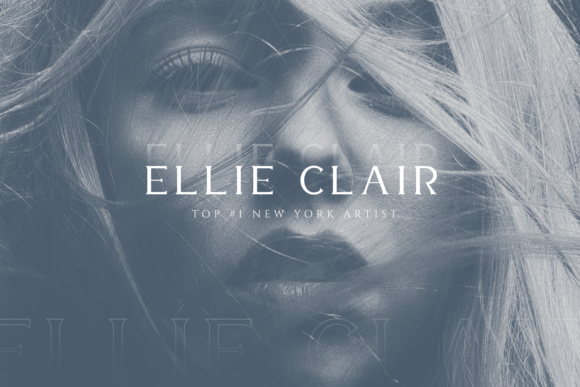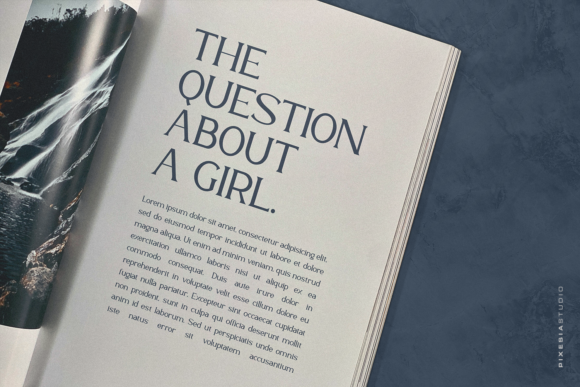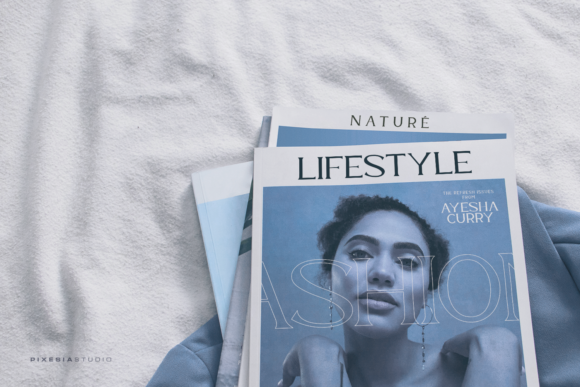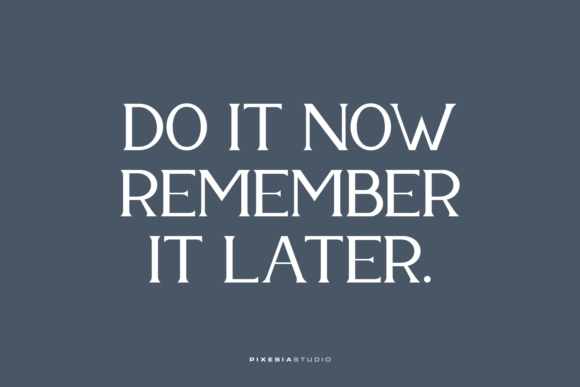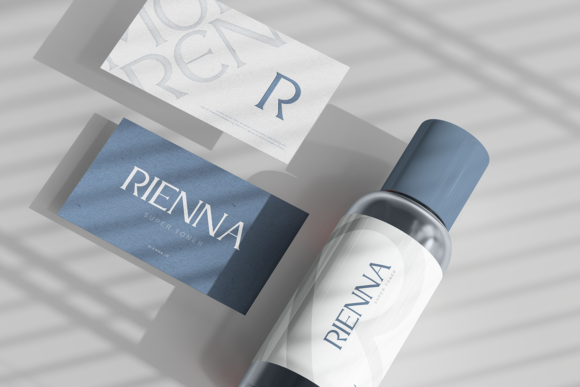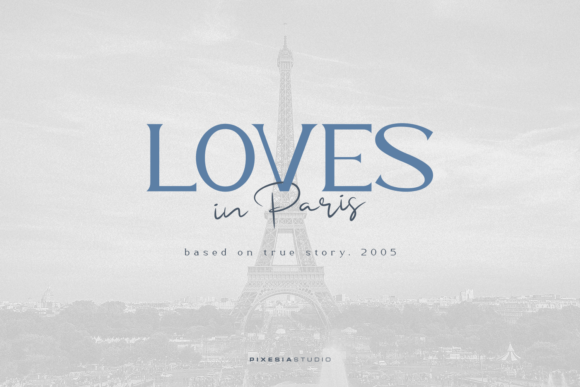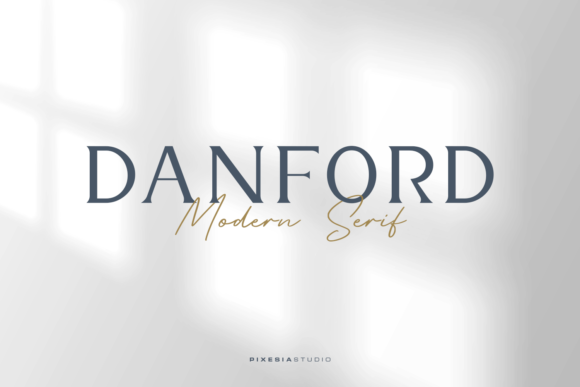
Introducing Danford Font: A Bold and Cool Serif for Crafty Ideas
Are you a designer or crafter looking for a unique and versatile font to elevate your creative projects? Look no further than Danford Font, a bold and cool serif font that’s perfect for a wide range of applications. From letterheads and titles to stationery and more, Danford Font is sure to make a statement.
What is Danford Font?
Danford Font is a carefully crafted serif font that’s designed to add a touch of sophistication and elegance to any project. Its bold and cool design makes it perfect for headlines, titles, and other display text, while its clear and readable structure ensures that it remains legible even at smaller sizes.
Key Features of Danford Font
- Bold and Cool Design: Danford Font features a bold and cool design that’s sure to grab attention. Its unique look is perfect for making a statement and adding a touch of personality to your projects.
- Serif Style: As a serif font, Danford Font features small lines or flourishes at the ends of its strokes. This classic design element adds a touch of sophistication and elegance to any project.
- Versatile: Danford Font is incredibly versatile, making it perfect for a wide range of applications. Use it for letterheads, titles, stationery, and more.
- Easy to Read: Despite its bold design, Danford Font remains clear and easy to read, even at smaller sizes. This makes it perfect for body text as well as display text.
Uses for Danford Font
So, what can you use Danford Font for? The possibilities are endless! Here are a few ideas to get you started:
- Letterheads and Stationery: Add a touch of professionalism and elegance to your letterheads and stationery with Danford Font.
- Titles and Headlines: Use Danford Font to create bold and eye-catching titles and headlines for your blog posts, articles, and other written content.
- Branding and Packaging: Danford Font is perfect for creating custom branding and packaging for your products. Use it to add a touch of personality and sophistication to your labels, packaging, and marketing materials.
- Signage and Displays: Danford Font is also great for creating eye-catching signage and displays. Use it to create bold and attention-grabbing signs for your business, event, or exhibition.
Why Choose Danford Font?
So, why should you choose Danford Font for your next project? Here are just a few reasons:
- Unique Design: Danford Font features a unique and original design that’s sure to make your project stand out.
- High-Quality: Danford Font is a high-quality font that’s designed to deliver exceptional results. Its clear and readable structure ensures that it remains legible even at smaller sizes.
- Easy to Use: Danford Font is incredibly easy to use, making it perfect for designers and crafters of all skill levels.
- Versatile: As mentioned earlier, Danford Font is incredibly versatile, making it perfect for a wide range of applications.
In conclusion, Danford Font is a bold and cool serif font that’s perfect for designers and crafters looking to add a touch of sophistication and elegance to their projects. Its unique design, high-quality construction, and versatility make it an excellent choice for a wide range of applications. Whether you’re creating letterheads, titles, stationery, or more, Danford Font is sure to deliver exceptional results.